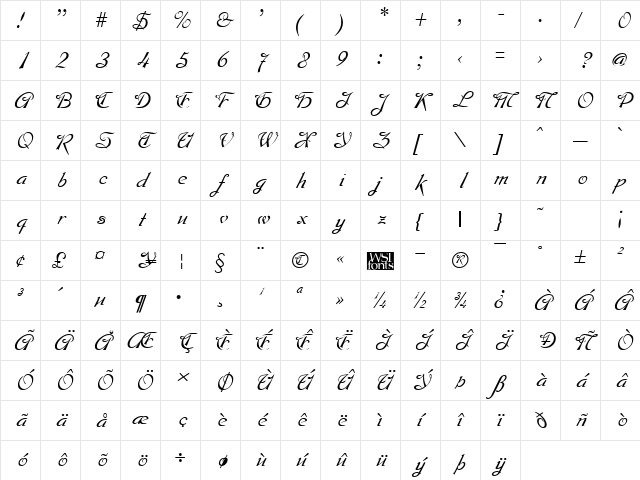
Montague Regular
Montague Family
Design Context for Montague
Montague is a composed and adaptable typeface that performs quietly and consistently across a wide range of design contexts.